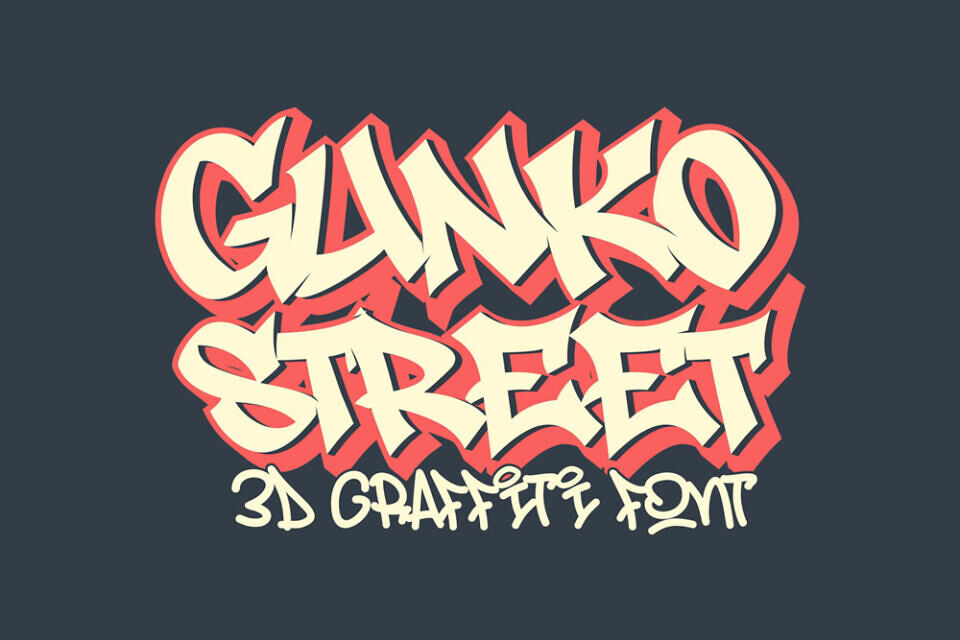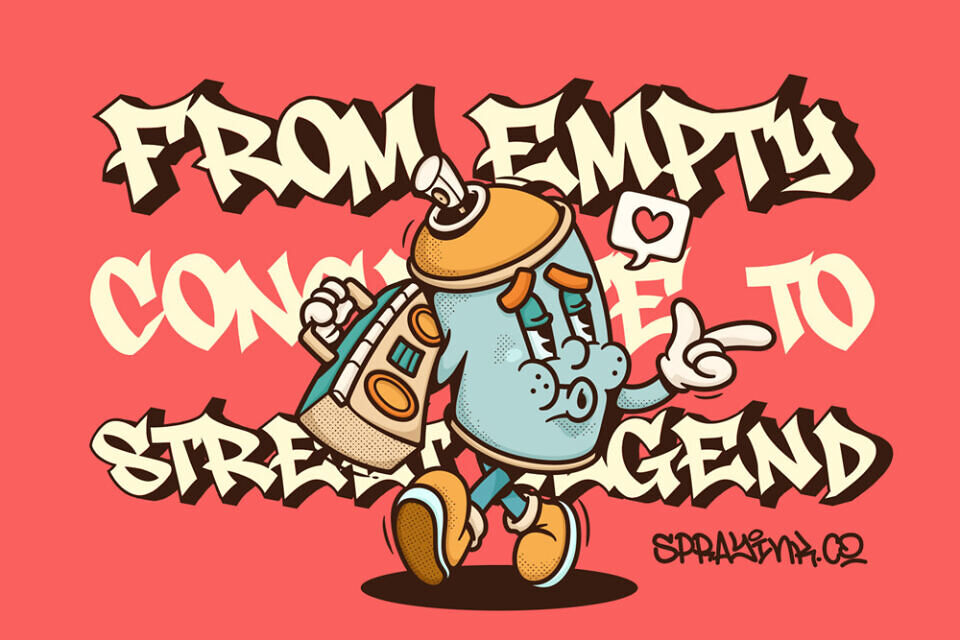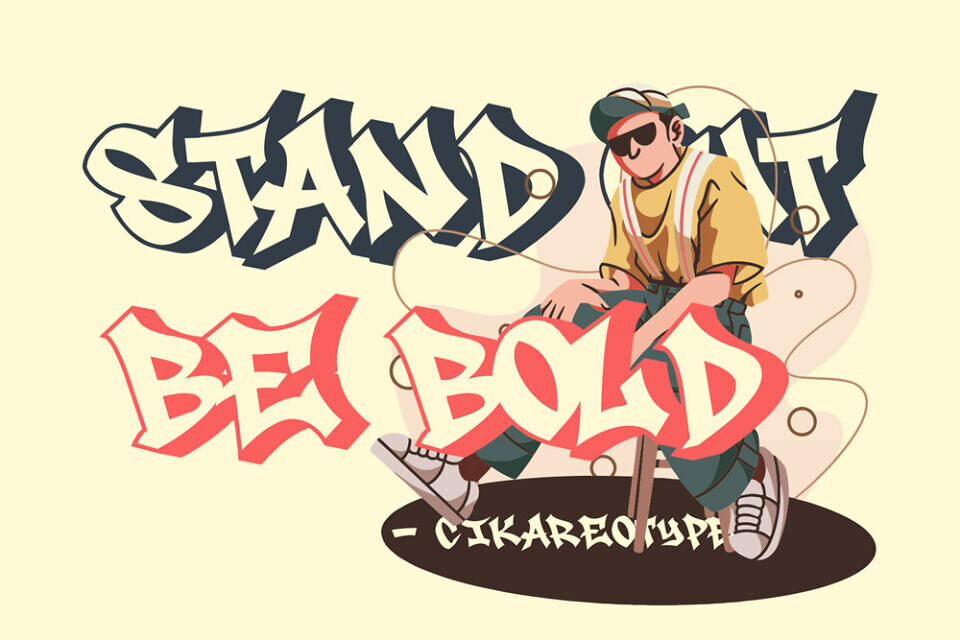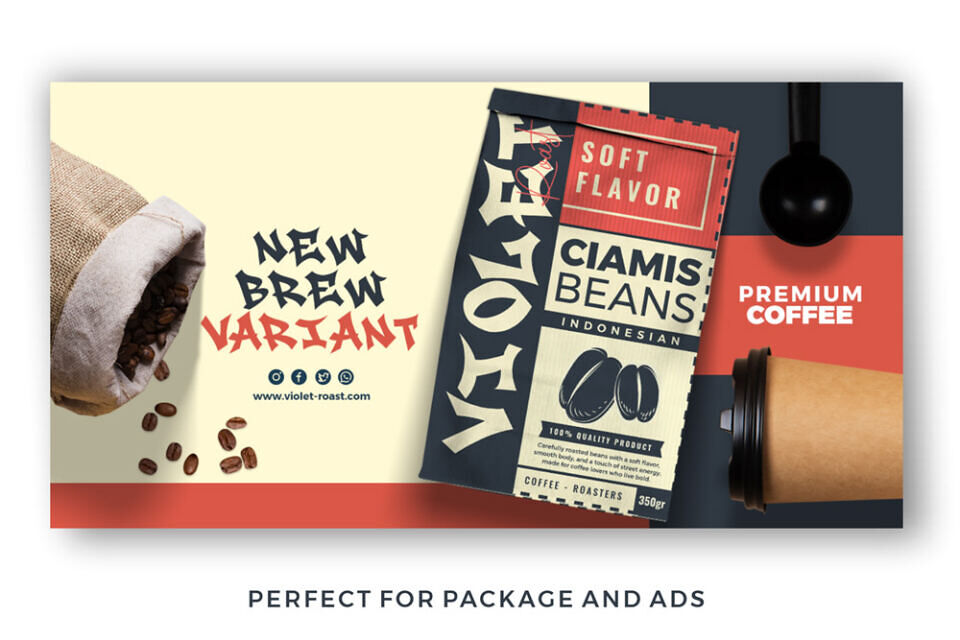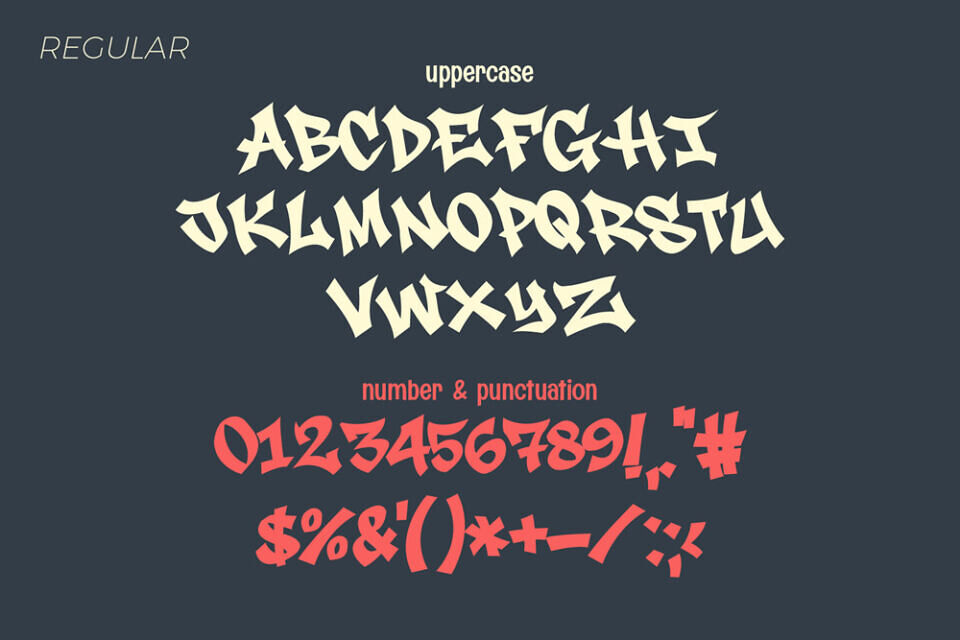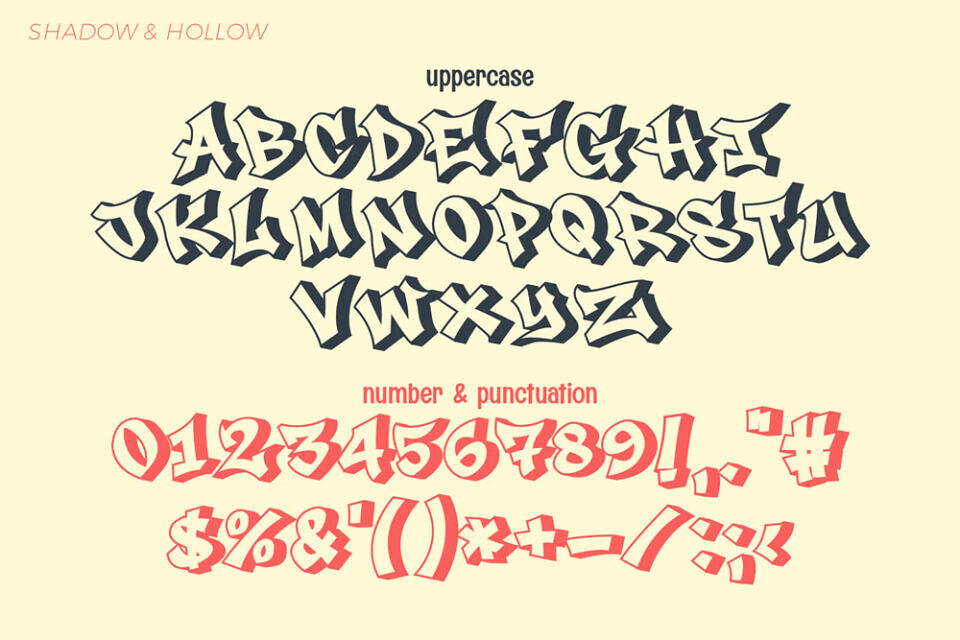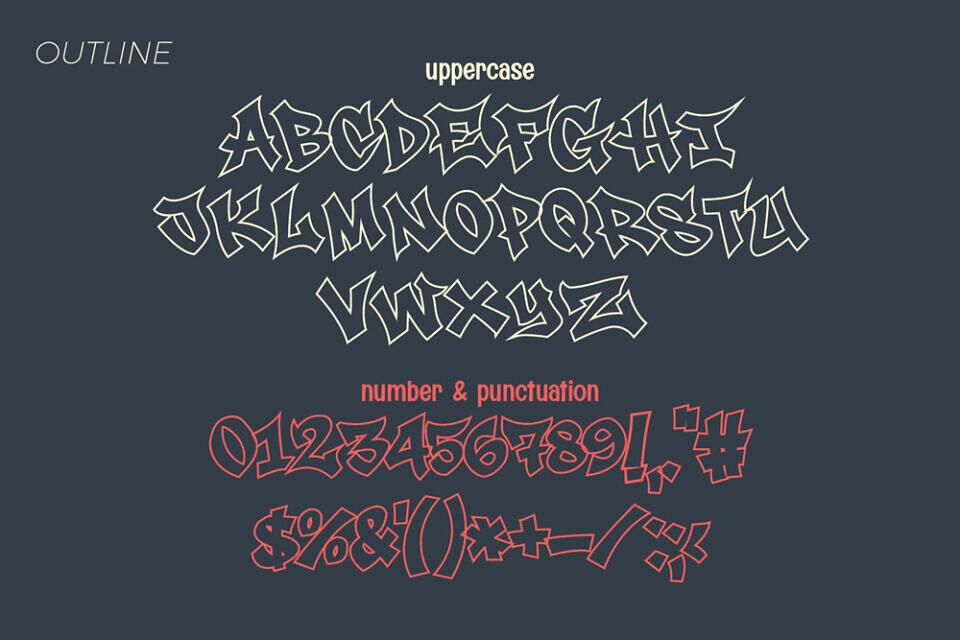
Gunko Street Font
Gunko Street is a bold 3D graffiti font designed for designers, brands, and creators who want to make a statement. Crafted entirely in uppercase characters, it delivers raw urban energy with a polished, professional finish. Its blocky structure, graffiti-inspired forms, and dimensional style make it perfect for streetwear branding, hip-hop promotions, posters, and digital art.
With three powerful styles—Regular, Hollow, and Outline—Gunko Street is more than just a font. It’s a graffiti lettering system built for maximum visual impact.
Designed by: Straightwell (Cikareotype Studio)